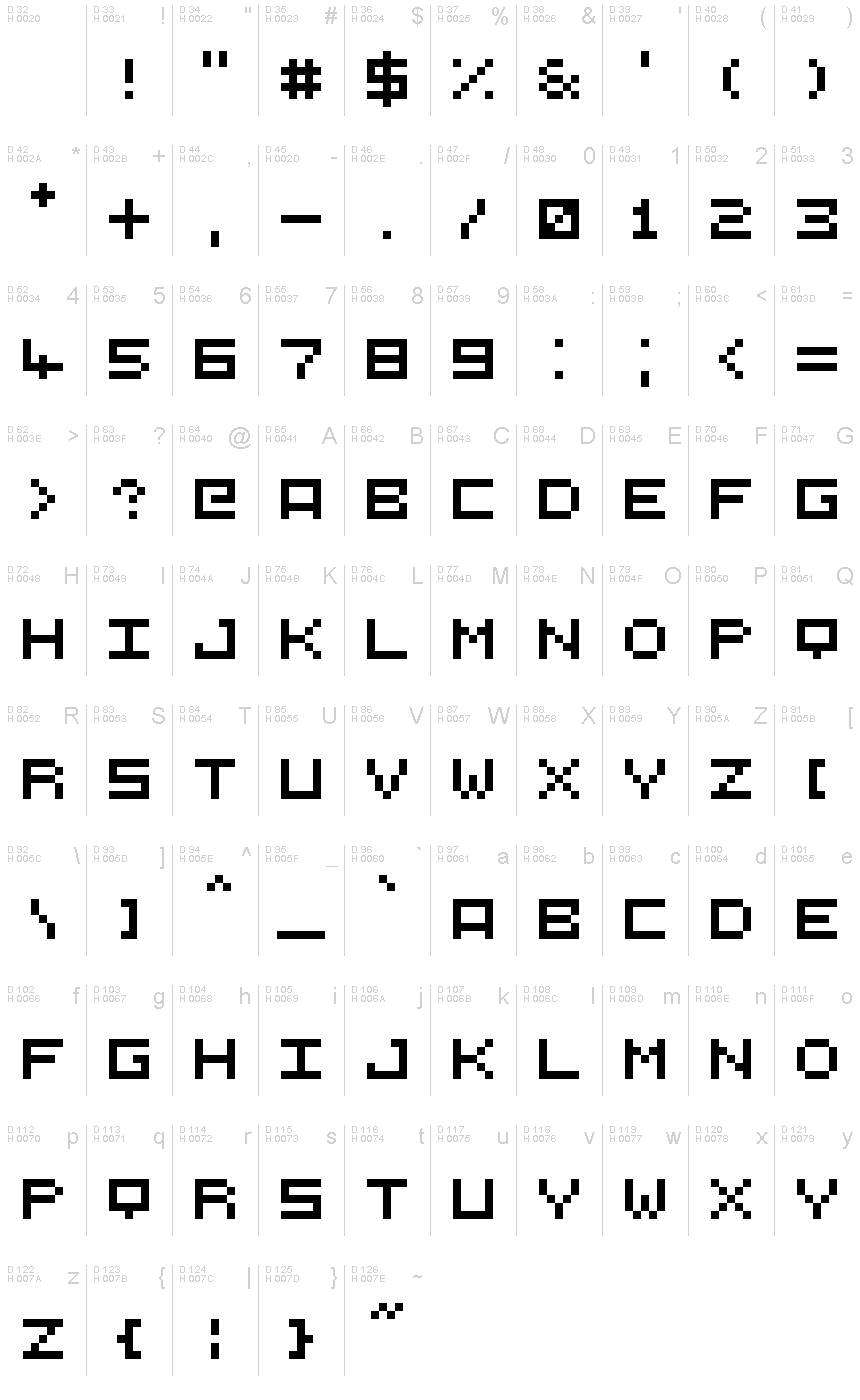
5×5
5x5 is a bold, pixelated font design by Trollax Kinora. Its expanded character width and sharp, angular aesthetic exude a distinctive, retro-inspired charm. The simplistic, bitmap-style glyphs convey a playful, nostalgic vibe, making this font well-suited for a variety of applications, from vintage game aesthetics to modern, minimalist branding. Its striking visual impact and clear legibility make 5x5 a compelling choice for headlines, logos, and display text, where its unique character can truly shine.
Designers seeking to infuse their work with a touch of pixelated flair will find this font a versatile and eye-catching addition to their typographic toolkits.